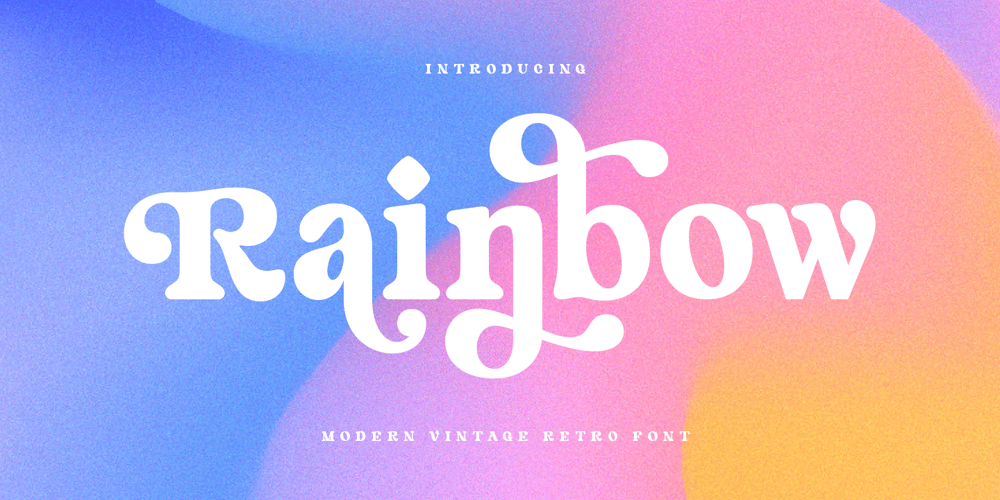
Rainbow Style
Rainbow Style font
Rainbow Style Font Family was designed by Zamroni Hamzah and published by Sensatype Studio. Rainbow Style contains 1 styles and family package options. Rainbow is a Modern Vintage Display FontA New Vintage font that we created special for Unique branding needs, with extra ligature in unique style that ready to add value of your brand. It’s so nice to leverage designer or product owner that need solutions to make their design look more unique and vintage.Rainbow Modern Vintage Display font ready with: Lowercase and Uppercase characters Numbers and Punctuations Preview as a inspirations that you can do with Rainbow font Available for PC and Mac Wish you enjoy our font.